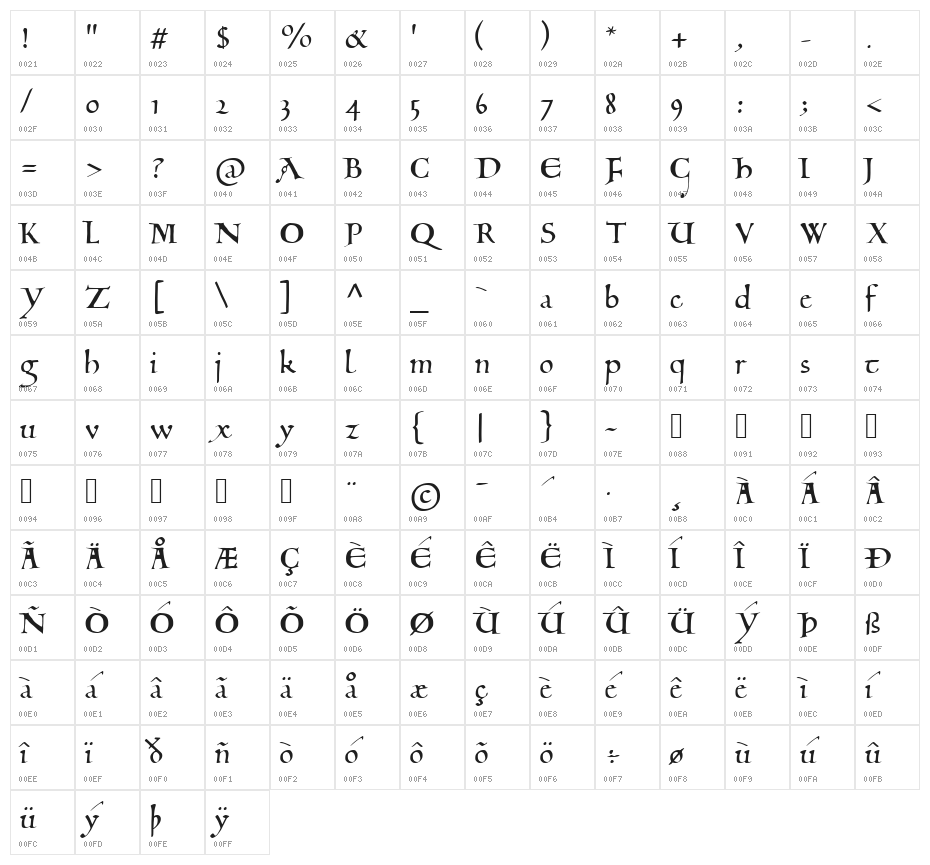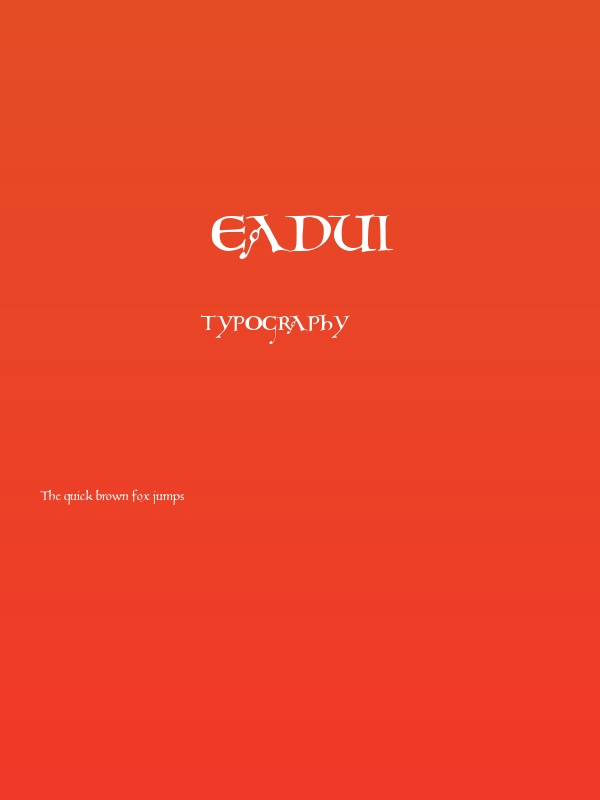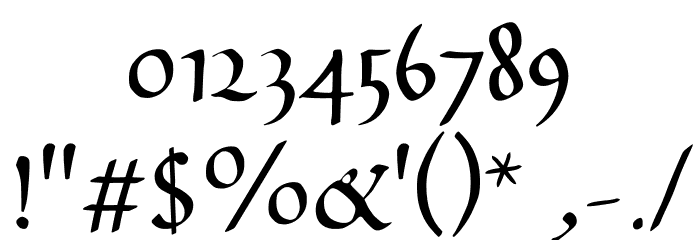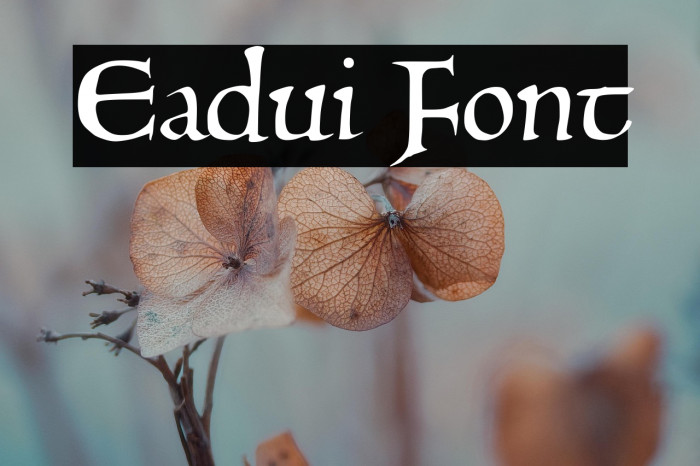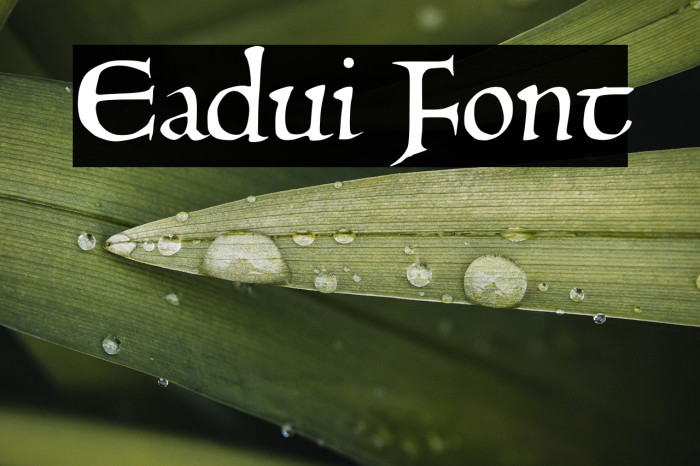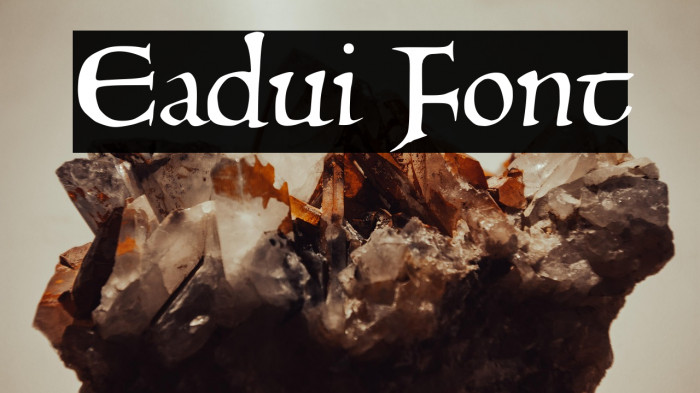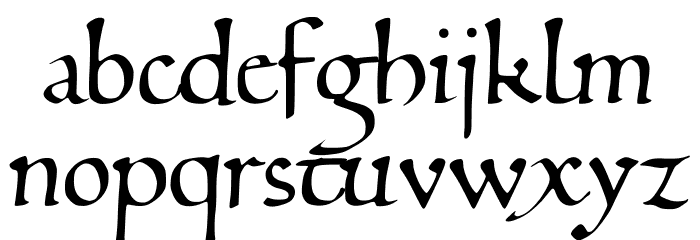
Eadui Font
Eadui Description
This font exhibits a medieval and calligraphic style, reminiscent of historical manuscripts. The uppercase letters are characterized by their ornate and angular forms, with some letters featuring unique flourishes and extensions. The lowercase letters maintain a consistent style, with a slightly more rounded appearance, yet still retaining the decorative elements. The numerals are distinct and follow the same calligraphic theme, adding to the overall historical feel. Special characters are crafted with the same attention to detail, ensuring a cohesive look across all glyphs.
| Proposed Projects | Ideal for historical documents, fantasy-themed projects, book covers, or any design requiring a medieval aesthetic. |